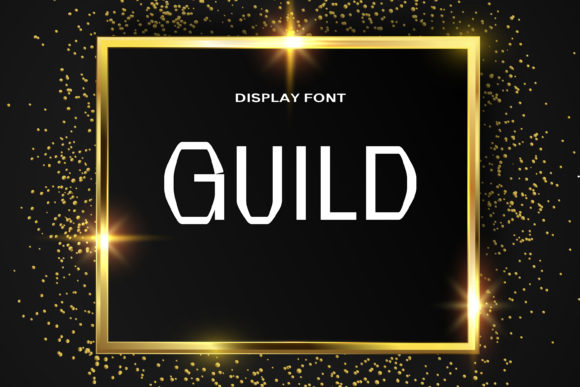
Prepare to be mesmerized by the Guild Font, a display font that exudes boldness and originality. Immerse yourself in the world of geometric shapes and futuristic aesthetics as this font transforms your designs into captivating masterpieces.
With its sharp angles and clean lines, Guild Font is the perfect choice for minimal logos that demand attention. Its unique character adds an air of sophistication, making it ideal for branding, packaging, and any project that requires a touch of the extraordinary.
Step into a realm of endless possibilities with Guild Font. Let its geometric allure elevate your designs to new heights, capturing the essence of modernism and innovation. Experience the thrill of creating logos that stand out from the crowd, exuding a timeless appeal that resonates with audiences.
Unleash your creativity and watch as Guild Font weaves its magic, transforming your designs into captivating works of art. Embrace the future of typography and let this geometric gem guide you towards design excellence.